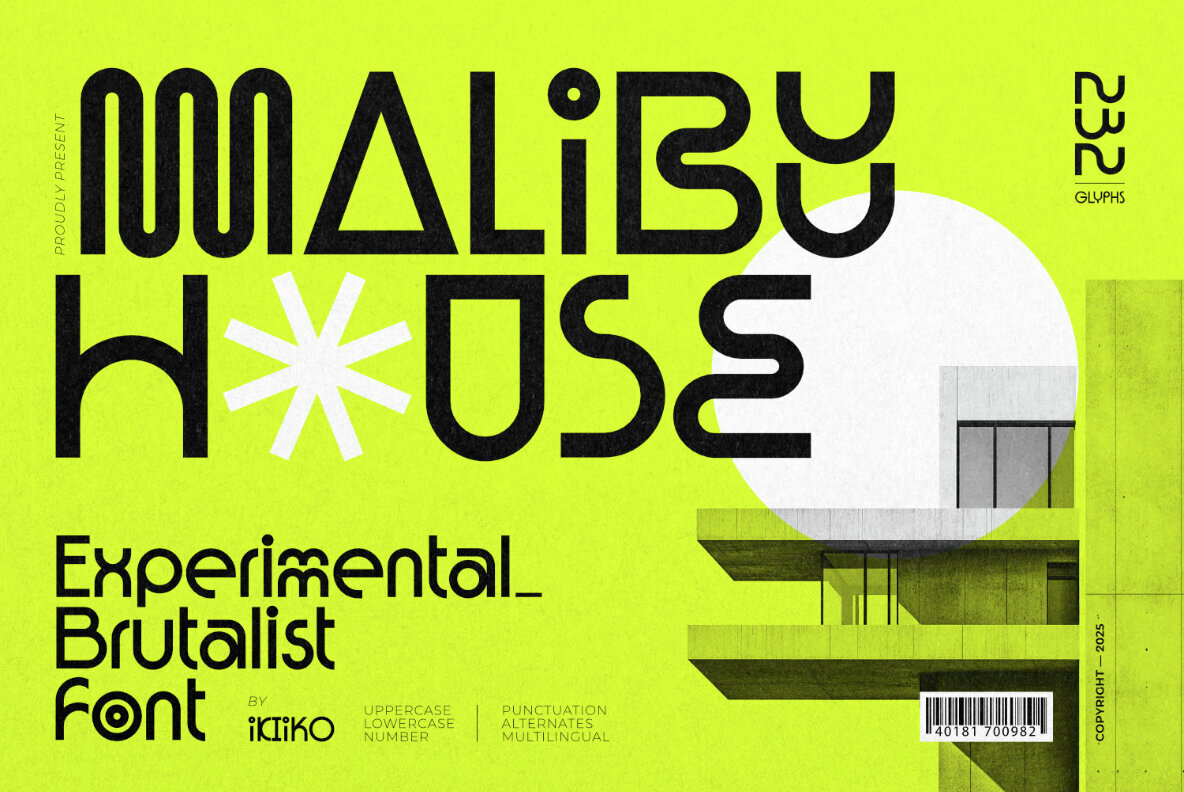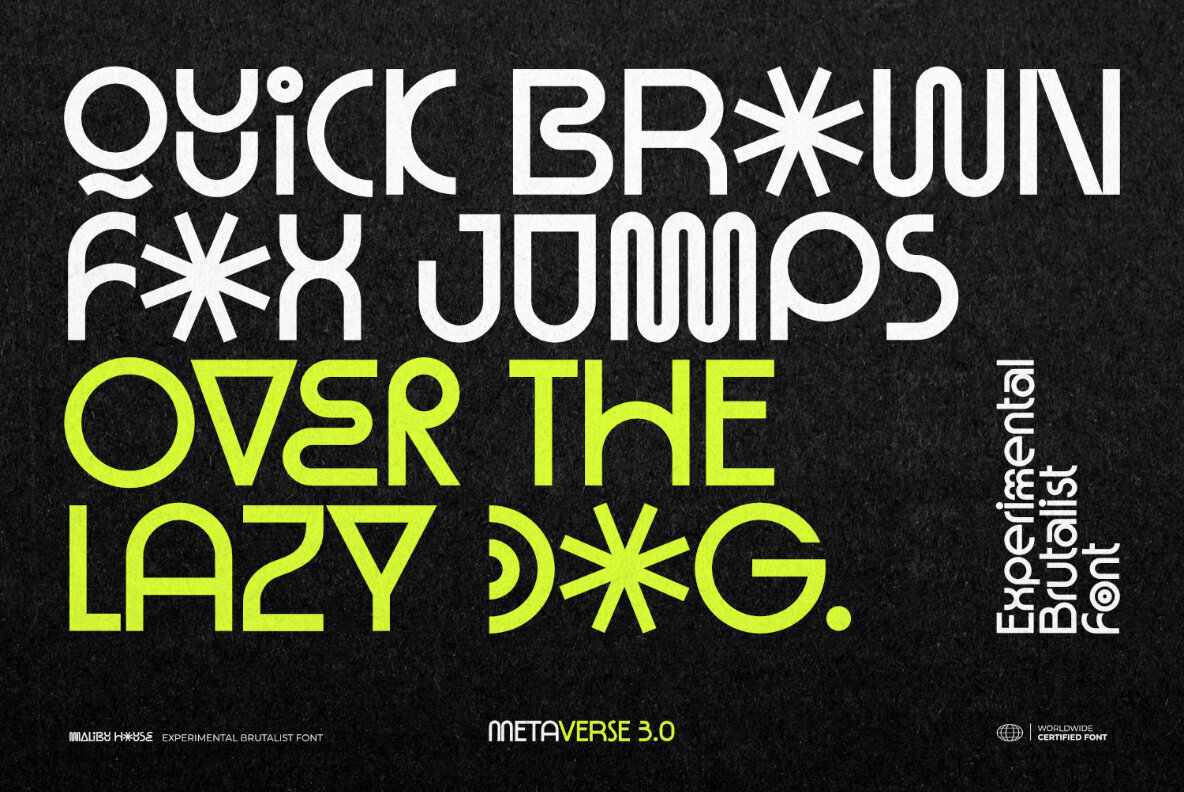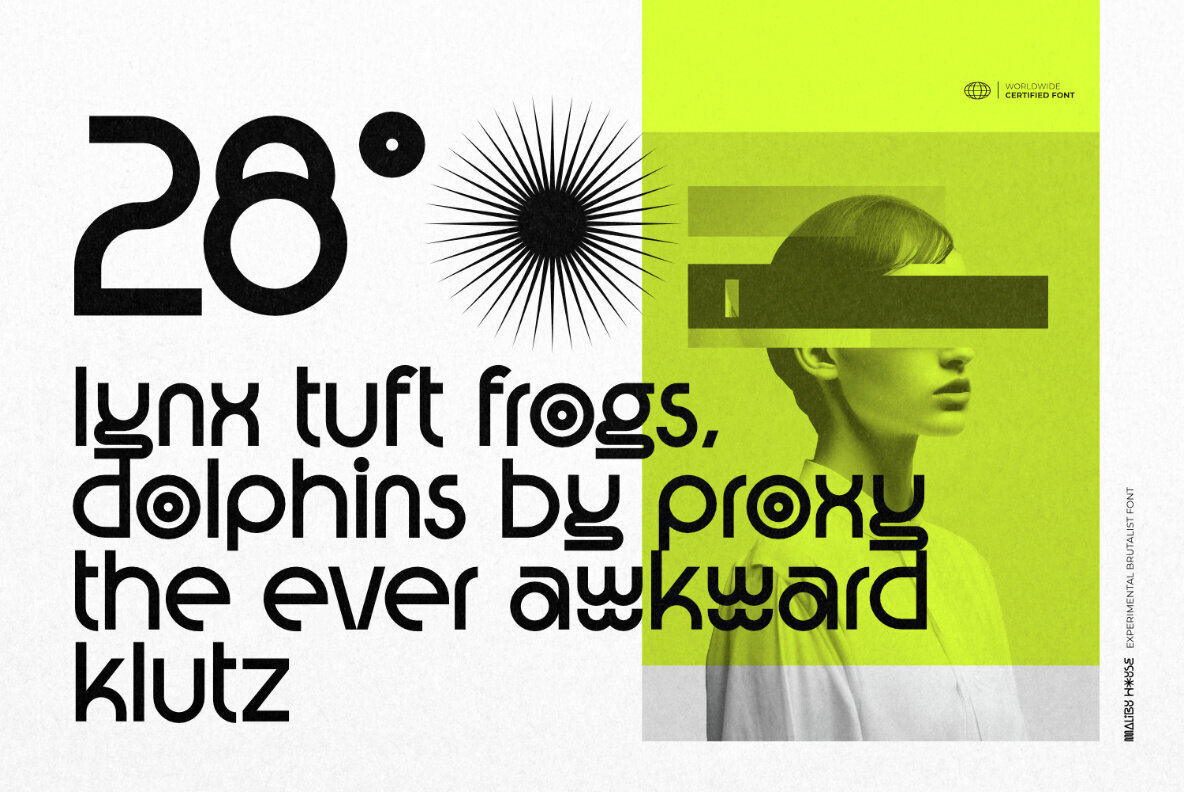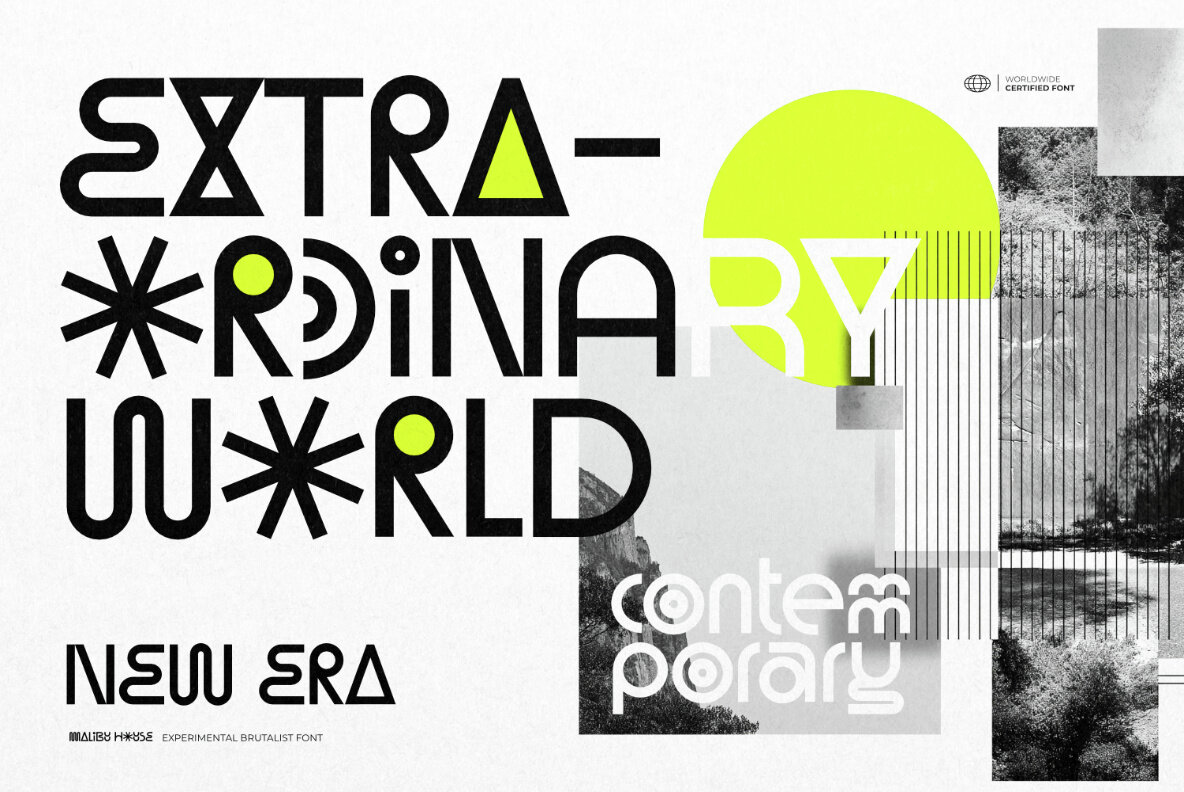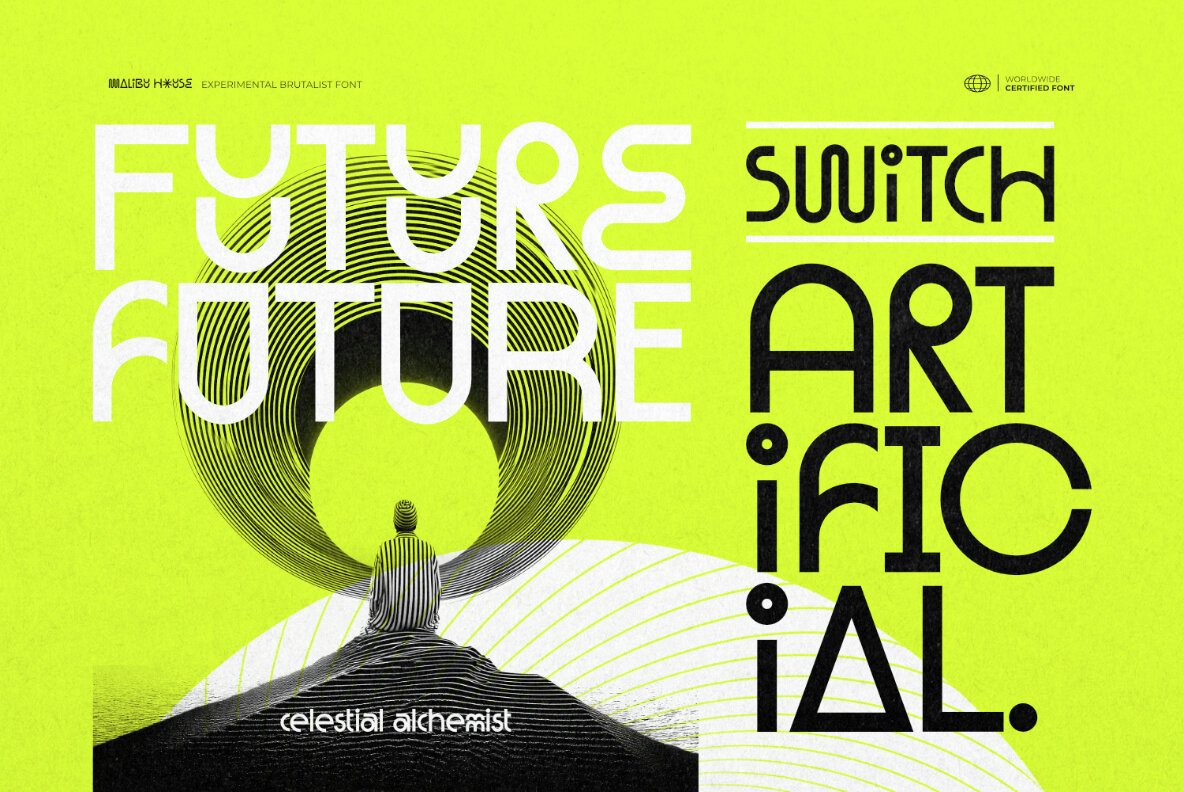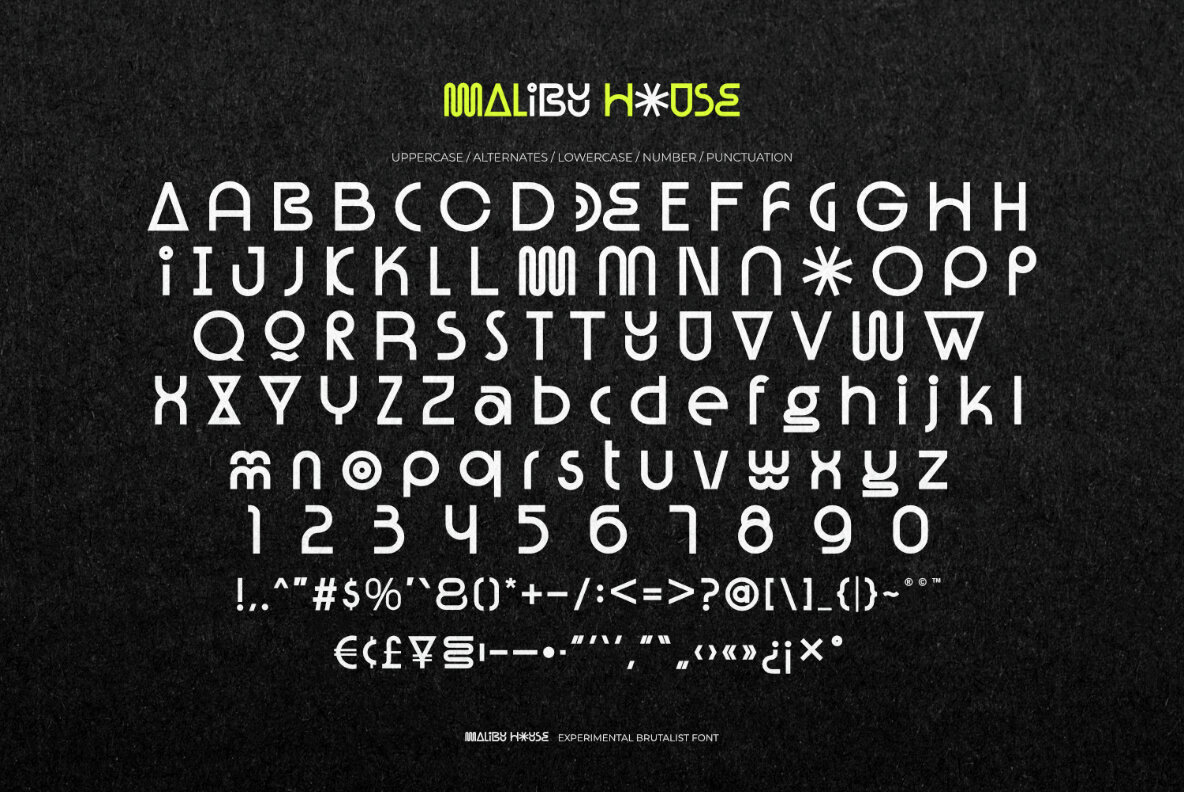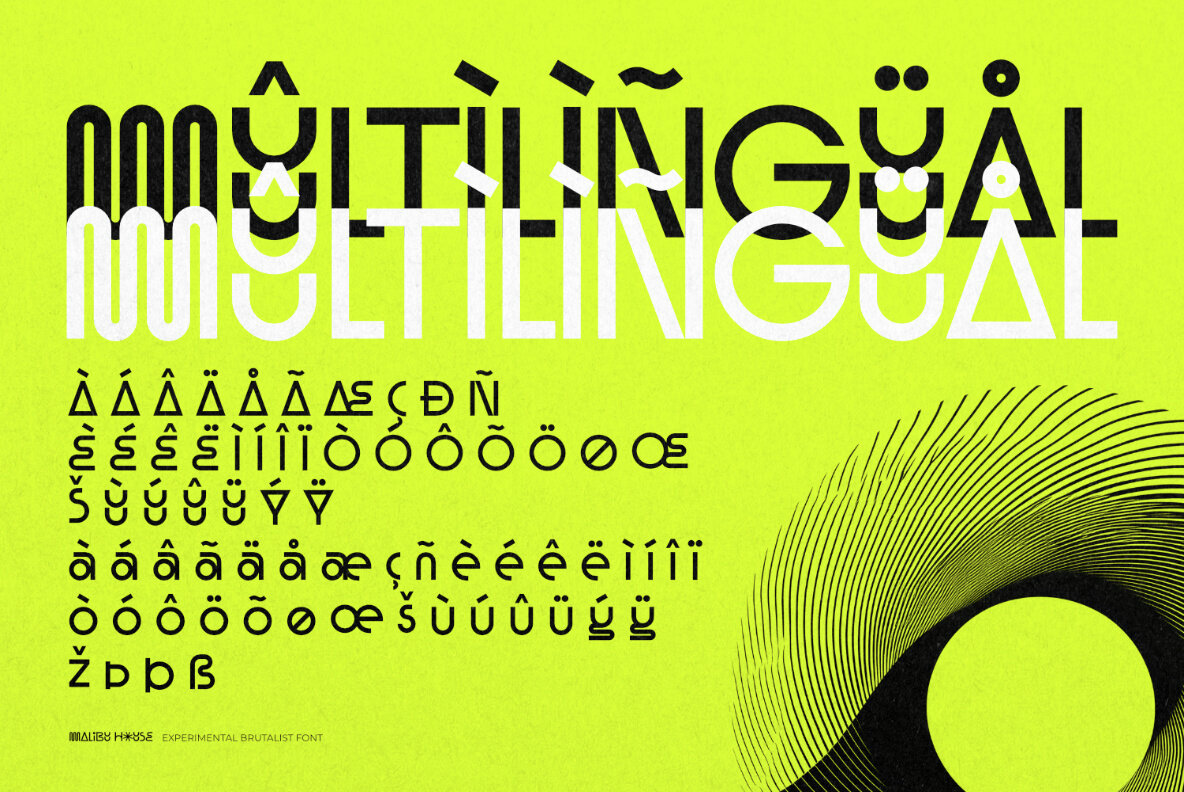
Malibu House Font
Malibu House
Embrace the future of design with Malibu House, a font that combines the raw energy of brutalism with geometric precision. Drawn from bold brutalist aesthetics and the streamlined allure of futuristic typography, this typeface is an ideal addition to modern creative endeavors. Malibu House is crafted for designers who seek a balance of minimalist structure and contemporary flair. It is characterized by sharp edges and modular forms, creating a visual language that is both art-forward and unapologetically bold. Whether designing a disruptive brand, an avant-garde poster, or a high-impact editorial layout, Malibu House demands attention. With influences from industrial design, modern architecture, and neo-futurism, this typeface serves as more than a font — it embodies a design ethos. Ideal for use in futurism projects, Y2K themes, posters, branding, headlines, and more, Malibu House offers versatility for a variety of creative applications.Malibu House: An Experimental Brutalist Typeface